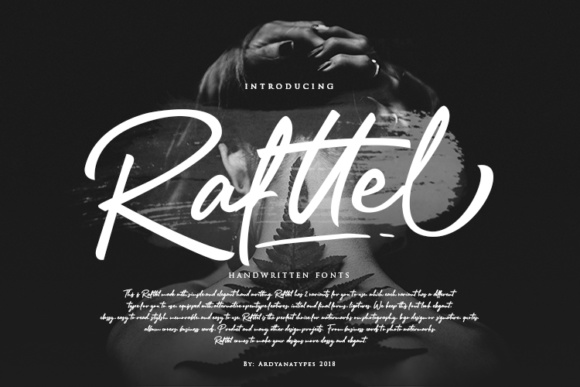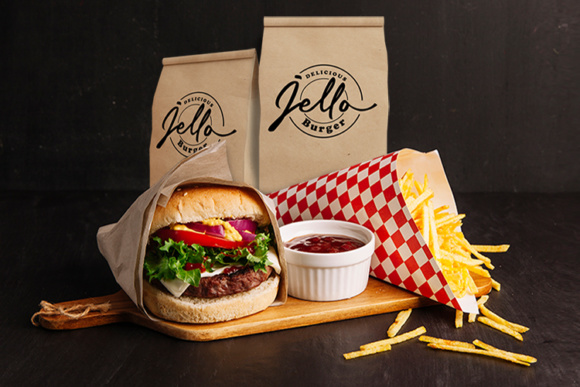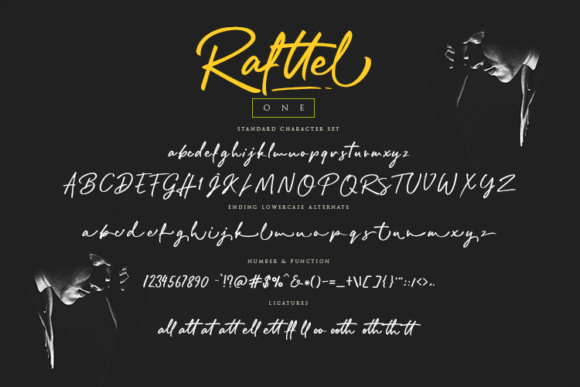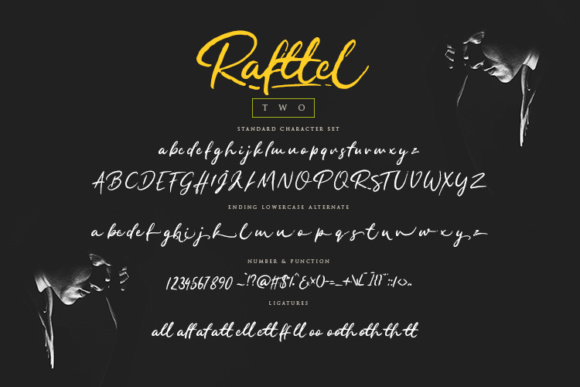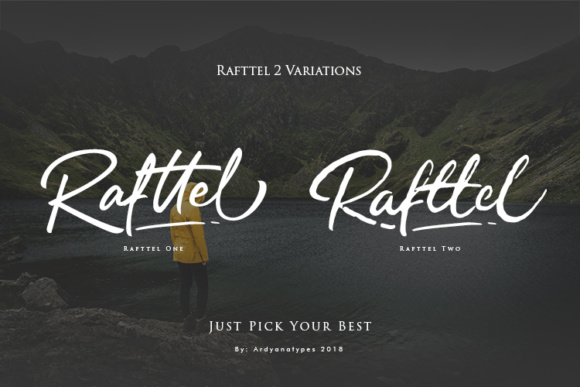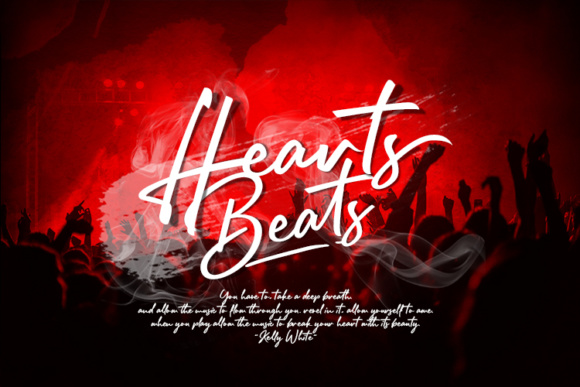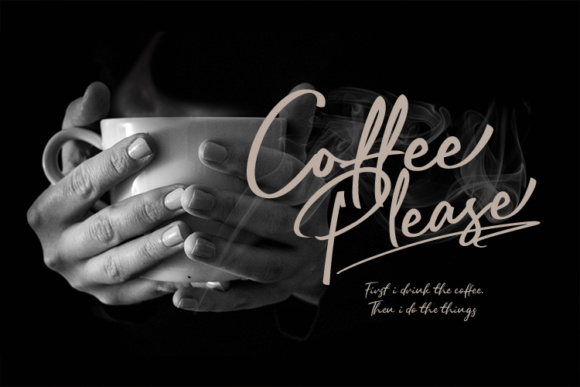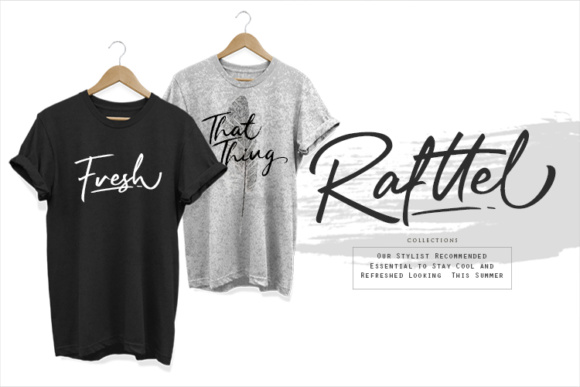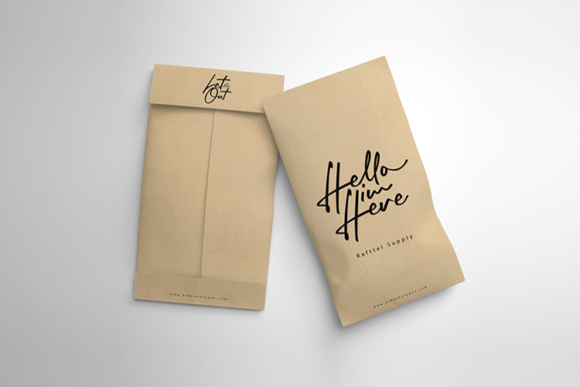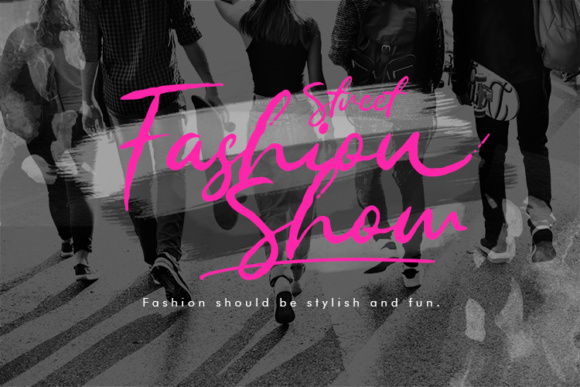
Rafttel Font
About Rafttel Font
The Rafttel is a modern handwritten typeface. It comes in two elegant variations which both will give your design a stylish, classy feel.